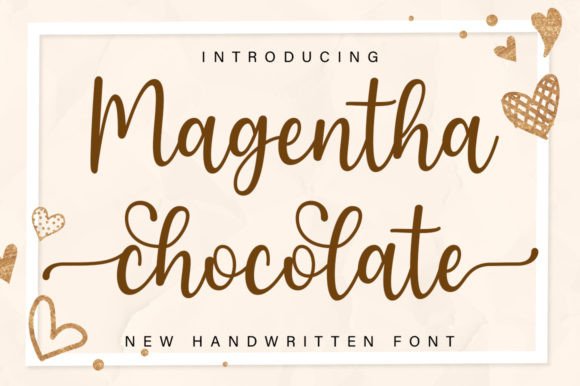
Behold, Magentha Chocolate Font, a calligraphic masterpiece that drips with beauty and elegance. Its copperplate calligraphy, intertwined with a hand-lettering style, makes it a stunning choice for modern websites and a wide range of creative endeavors. Experience the alluring subtlety, clean lines, and feminine grace of this font. Its sensual, glamorous, and effortlessly readable design will captivate your audience and leave them spellbound.
Magentha Chocolate's versatility shines in formal settings, adding a touch of sophistication to invitations, labels, menus, logos, and stationery. Let your creativity soar as you explore its potential in fashion, make-up, magazines, books, and greeting cards. Its classic style lends an air of timeless elegance to any project.
Unleash the full power of Magentha Chocolate's PUA-encoded characters and ligatures to elevate your designs. Access a world of amazing glyphs with ease and create captivating text arrangements that will leave your audience in awe.
Dive into the world of Magentha Chocolate and let your imagination run free. Its versatility and captivating beauty will transform your projects, adding a touch of magic to every creation. Download Magentha Chocolate today and unlock the gateway to a world of design possibilities.